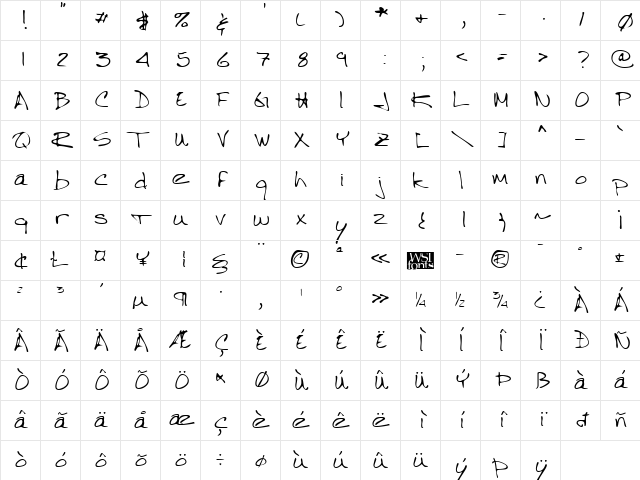
StanleysHand Regular
Design Context for StanleysHand
StanleysHand flows with the natural rhythm of handwritten lettering, making it ideal for designs that call for warmth and personal expression.
Font Pairing: Combine StanleysHand with a simple geometric sans for maximum contrast - the tension between flowing curves and clean structure is a classic typographic pairing.
Pro Tip: Use StanleysHand for short runs of text - names, titles, or taglines. Extended body copy in script faces tires the eye quickly.